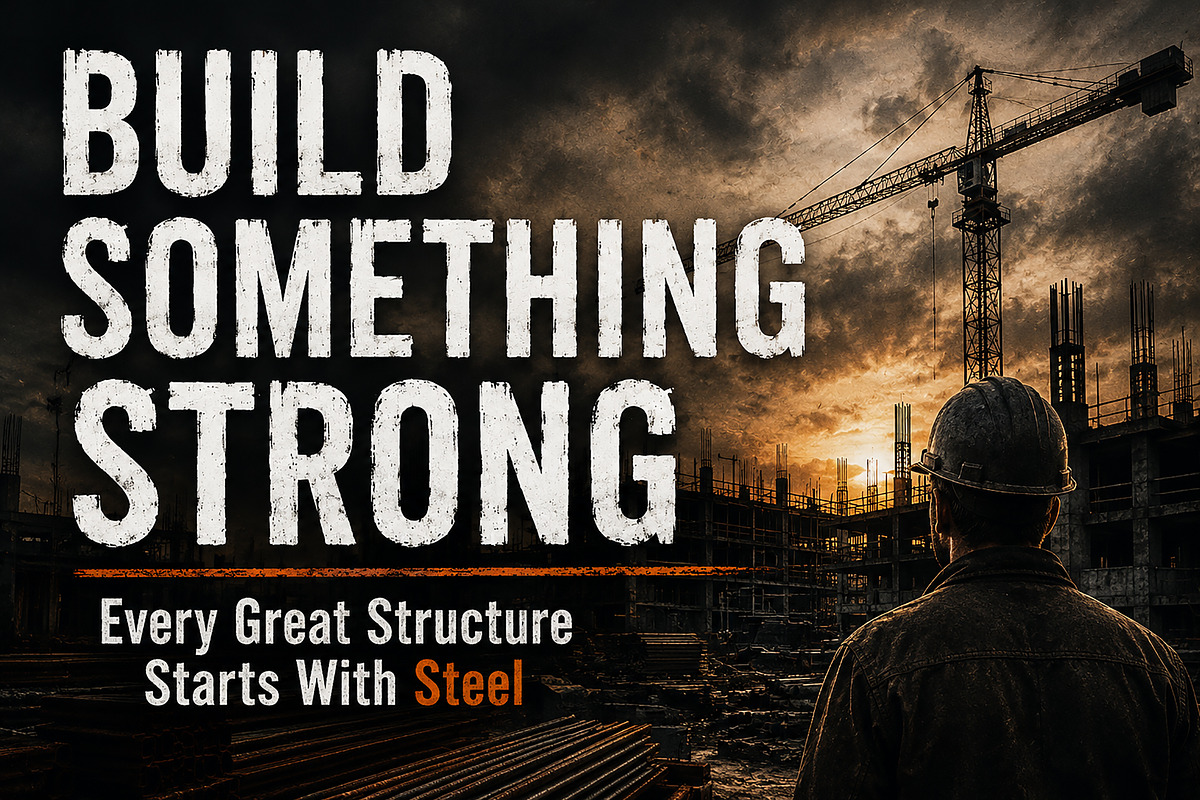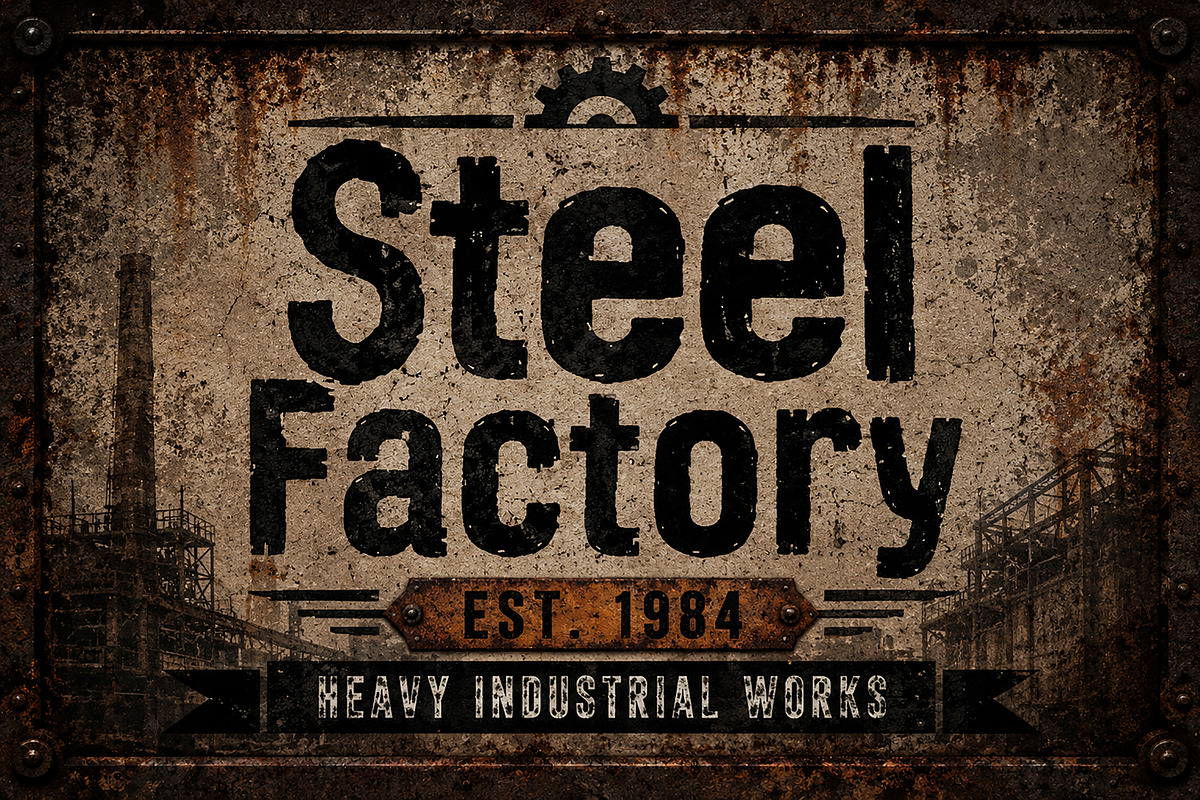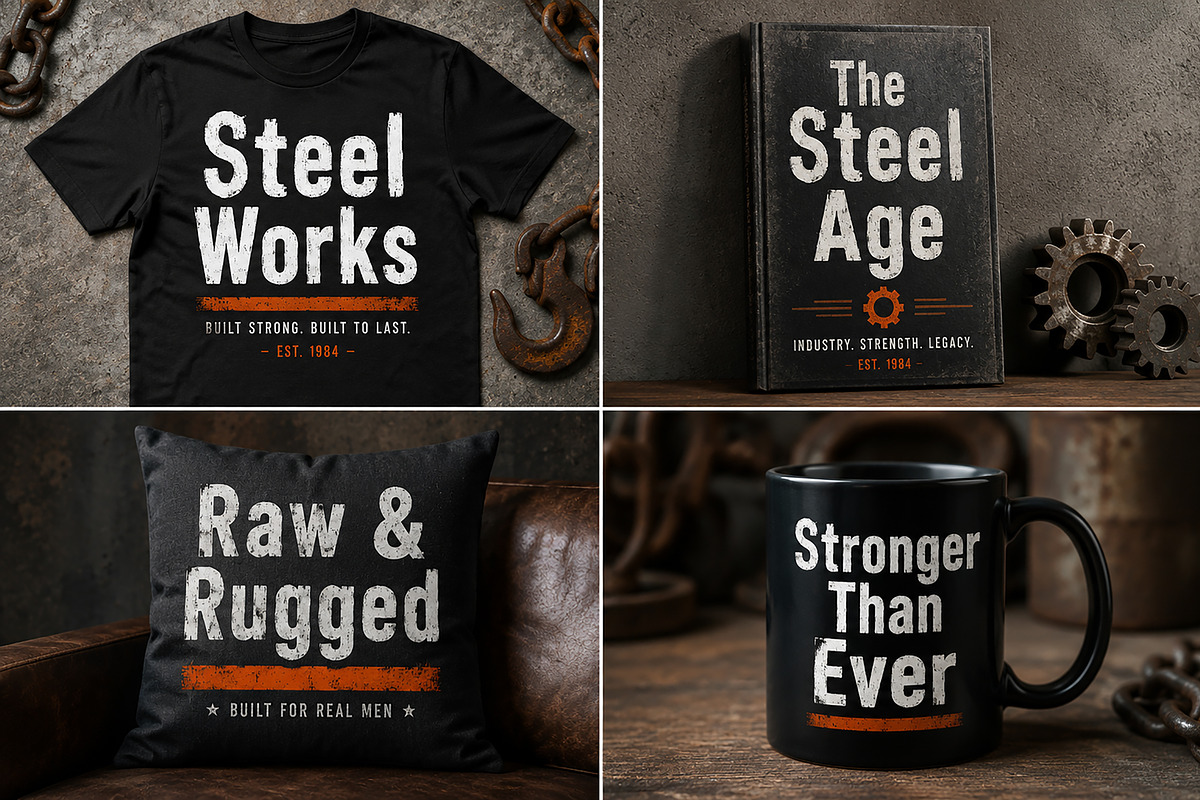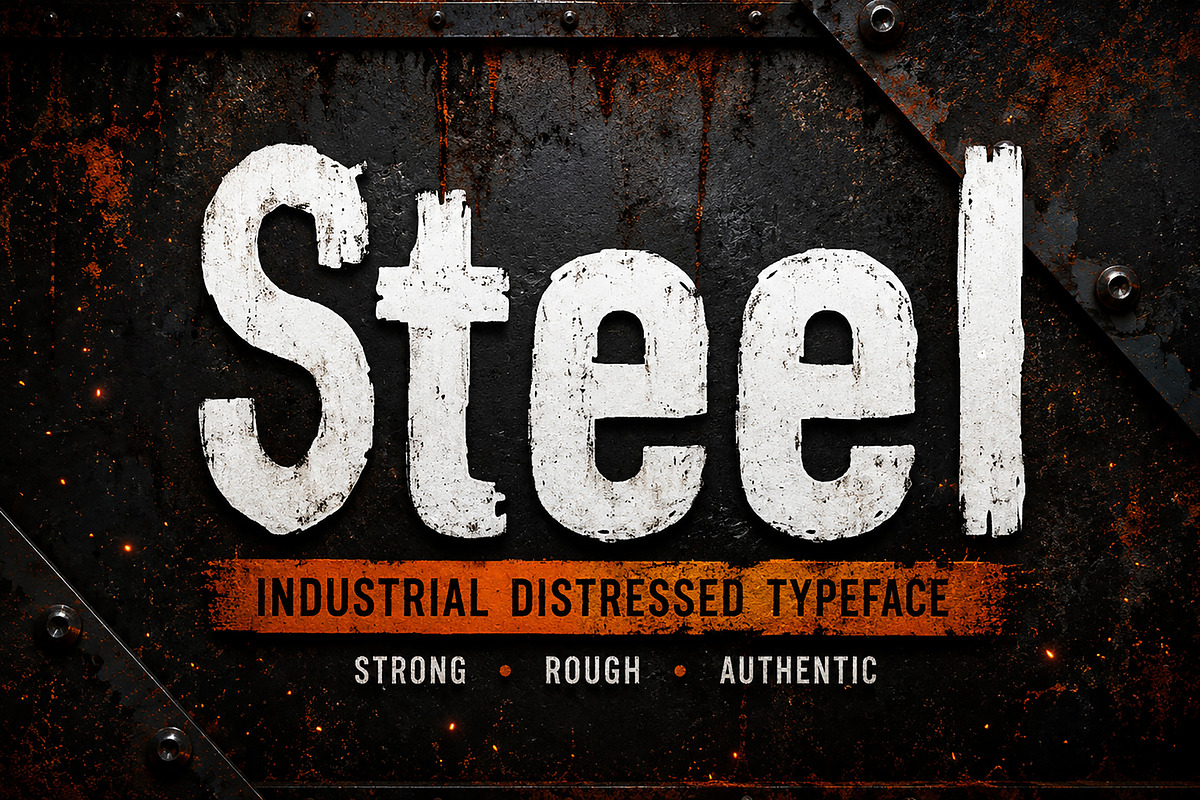
Steel
STEEL – Industrial Distressed Typeface
STEEL is a bold industrial display font inspired by rugged metal surfaces, worn factory signage, vintage machinery, and heavy-duty craftsmanship. Designed with an authentic distressed texture, this typeface delivers a raw, powerful, and weathered look that instantly adds character to your designs.
Perfect for industrial branding, construction companies, vintage posters, workwear apparel, product packaging, logos, signage, social media graphics, book covers, merchandise, and any project that needs a strong and gritty visual impact.
Whether you're creating a factory-inspired logo, a bold t-shirt design, or a rugged promotional poster, STEEL brings strength, authenticity, and industrial attitude to every project.
✔ High-Quality Distressed Texture
Industrial Branding
Construction & Manufacturing Logos
Vintage Posters
Workwear & Apparel Designs
Product Labels
Signage & Advertising
Merchandise Design
Outdoor & Adventure Branding
Retro Industrial Projects
Bring a bold industrial spirit to your next project with STEEL, a distressed typeface built for strong visual impact.